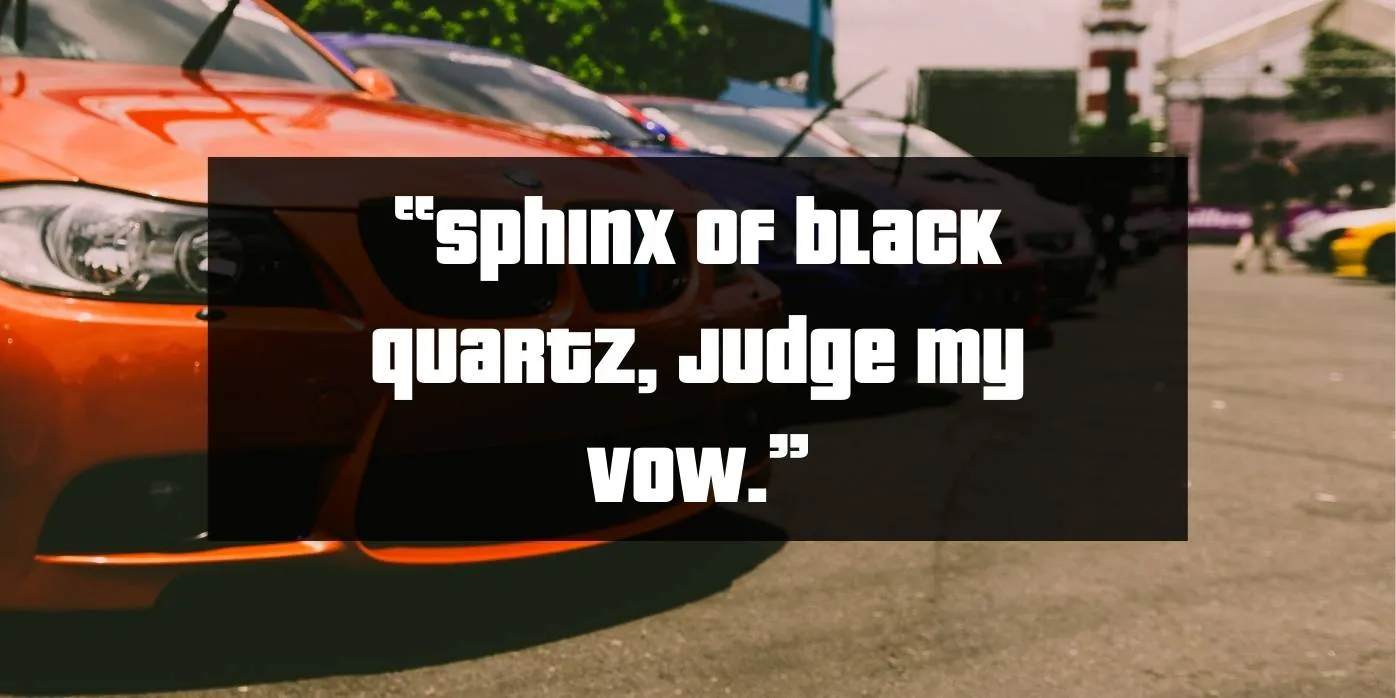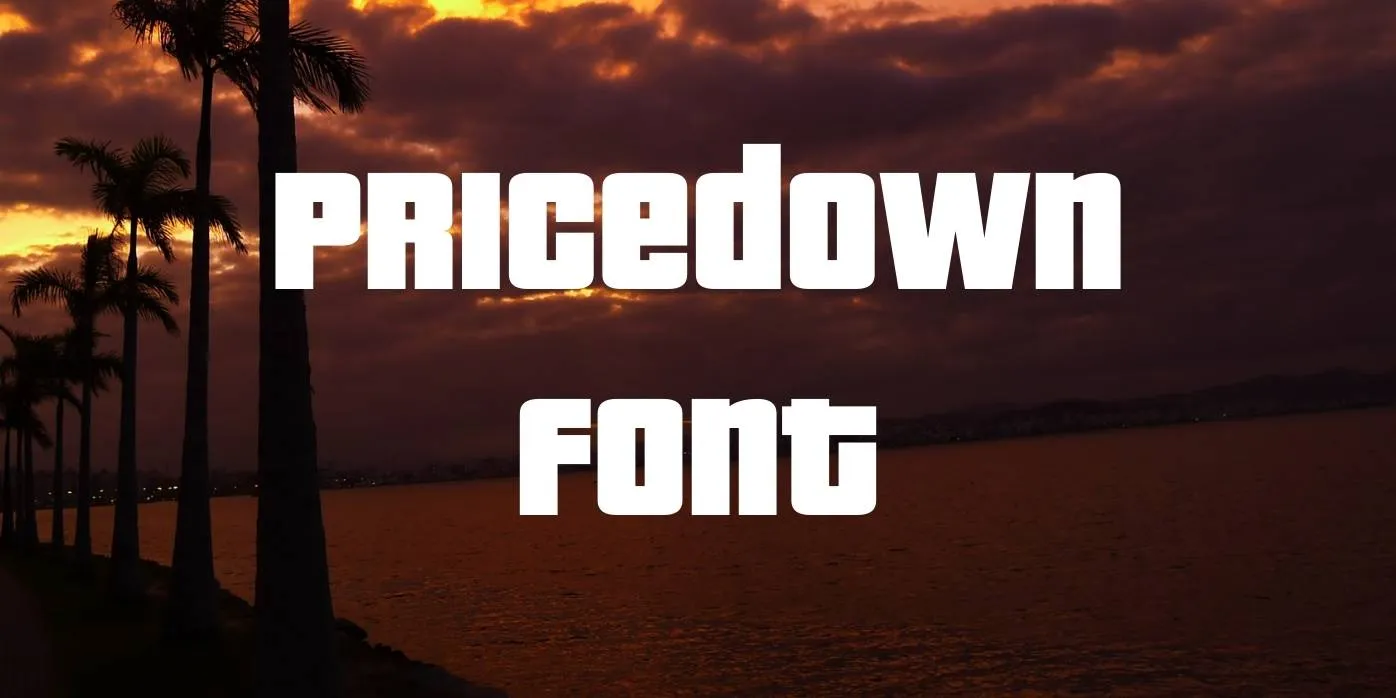
Pricedown Font
Pricedown Font belongs to the display font family. This amazing typeface was designed by Typodermic Fonts. The designer has kept the design of this font very simple. As a result, it can be used for various purposes.
In addition to that, it also includes plenty of special characters. As a result, it can be used for creating multilingual text documents. This typeface will also provide the facility of an online generator tool.